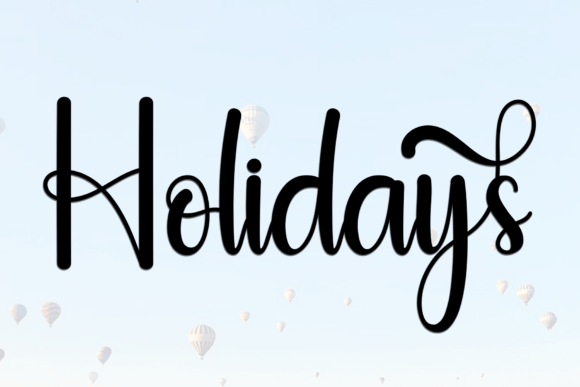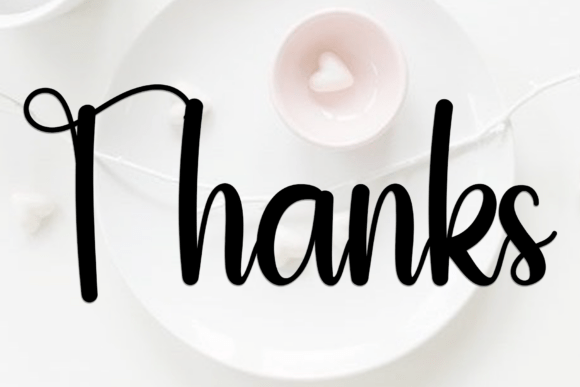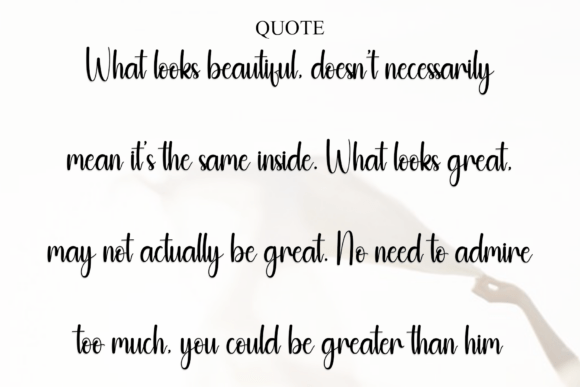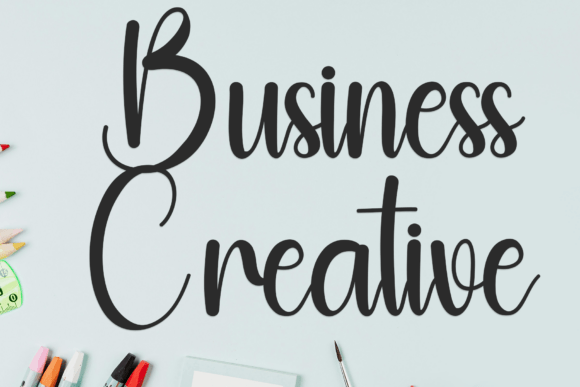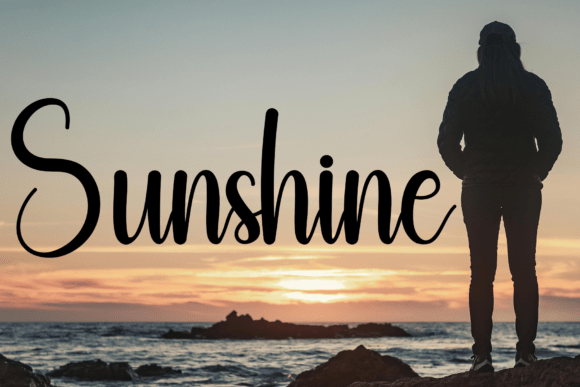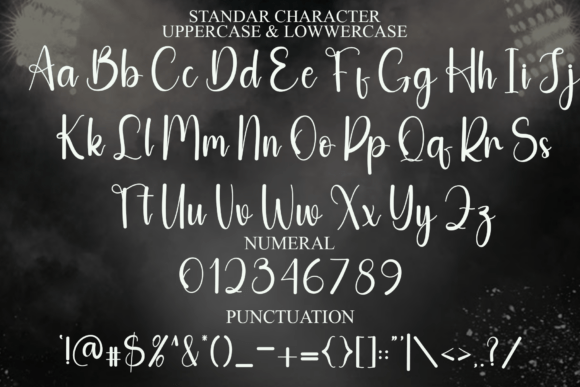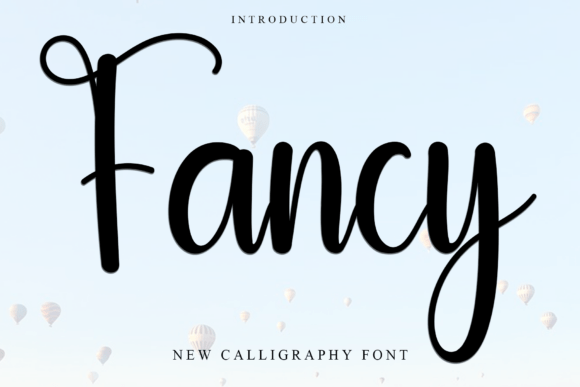
Fancy Font: Add a Touch of Holiday Magic to Your Designs
The holiday season is upon us, and what better way to capture its spirit than with a festive and merry typeface? Look no further than the Fancy Font, a decorative and whimsical font that’s perfect for adding a touch of enchantment to your designs. In this article, we’ll dive into the world of Fancy Font and explore its features, uses, and benefits for designers and crafters.
The Spirit of the Holiday Season in a Font
Fancy Font is a carefully crafted typeface that’s designed to evoke the magic and wonder of the holiday season. Its decorative elements and whimsical flair make it the perfect choice for greeting cards, gift tags, and holiday-themed projects. Whether you’re a designer, crafter, or DIY enthusiast, this font is sure to bring a cheerful and nostalgic ambiance to your words.
Decorative Elements and Whimsical Flair
So, what sets Fancy Font apart from other typefaces? The answer lies in its decorative elements and whimsical flair. This font features intricate swashes, flourishes, and ligatures that add a touch of elegance and sophistication to your designs. The whimsical elements, on the other hand, give your text a playful and festive feel that’s perfect for the holiday season.
Fancy Font is specifically designed with holiday projects in mind. Its festive and merry vibe makes it perfect for:
• Greeting cards: Create beautiful and unique holiday cards that will stand out from the crowd.
• Gift tags: Add a personal touch to your gifts with custom gift tags that feature Fancy Font.
• Holiday-themed projects: From invitations to party decorations, Fancy Font is the perfect choice for any holiday-themed project.
So, what are the benefits of using Fancy Font for designers and crafters? Here are just a few:
• High-quality designs: Fancy Font features high-quality designs that are perfect for printing and digital use.
• Customization: With a wide range of glyphs and ligatures, you can customize your designs to fit your unique style and vision.
• Time-saving: Fancy Font saves you time and effort, allowing you to focus on the creative aspects of your project rather than spending hours designing from scratch.
In conclusion, Fancy Font is a festive and merry typeface that’s perfect for adding a touch of holiday magic to your designs. With its decorative elements and whimsical flair, it’s the perfect choice for greeting cards, gift tags, and holiday-themed projects. And with PUA encoding, you can access all of the amazing glyphs and ligatures with ease. So why wait? Let your typography shine with the magic of Fancy Font, and bring a cheerful and nostalgic ambiance to your words.